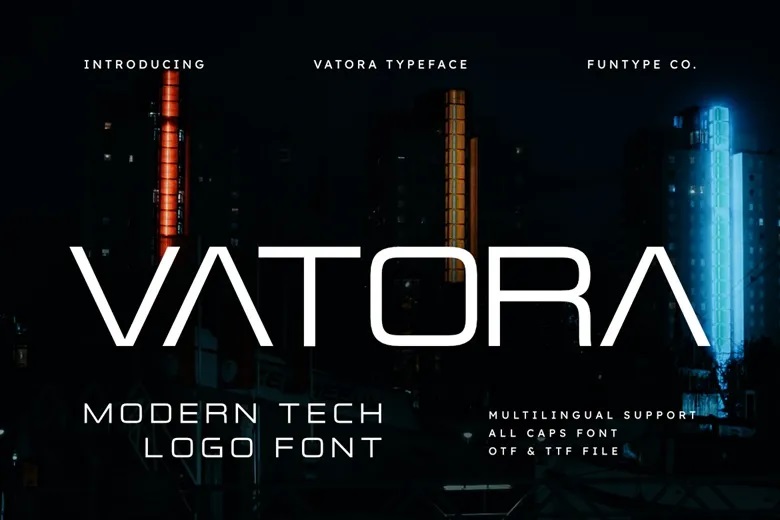
Vatora Font
Vatora is a modern tech logo font with a bold, powerful style made for high-impact, precise typography. Its wide shape and clean lines work well for strong headlines, tech logos, industrial branding, and digital posters. The balanced design helps your visuals look sharp, professional, and modern.
Vatora Logo Font